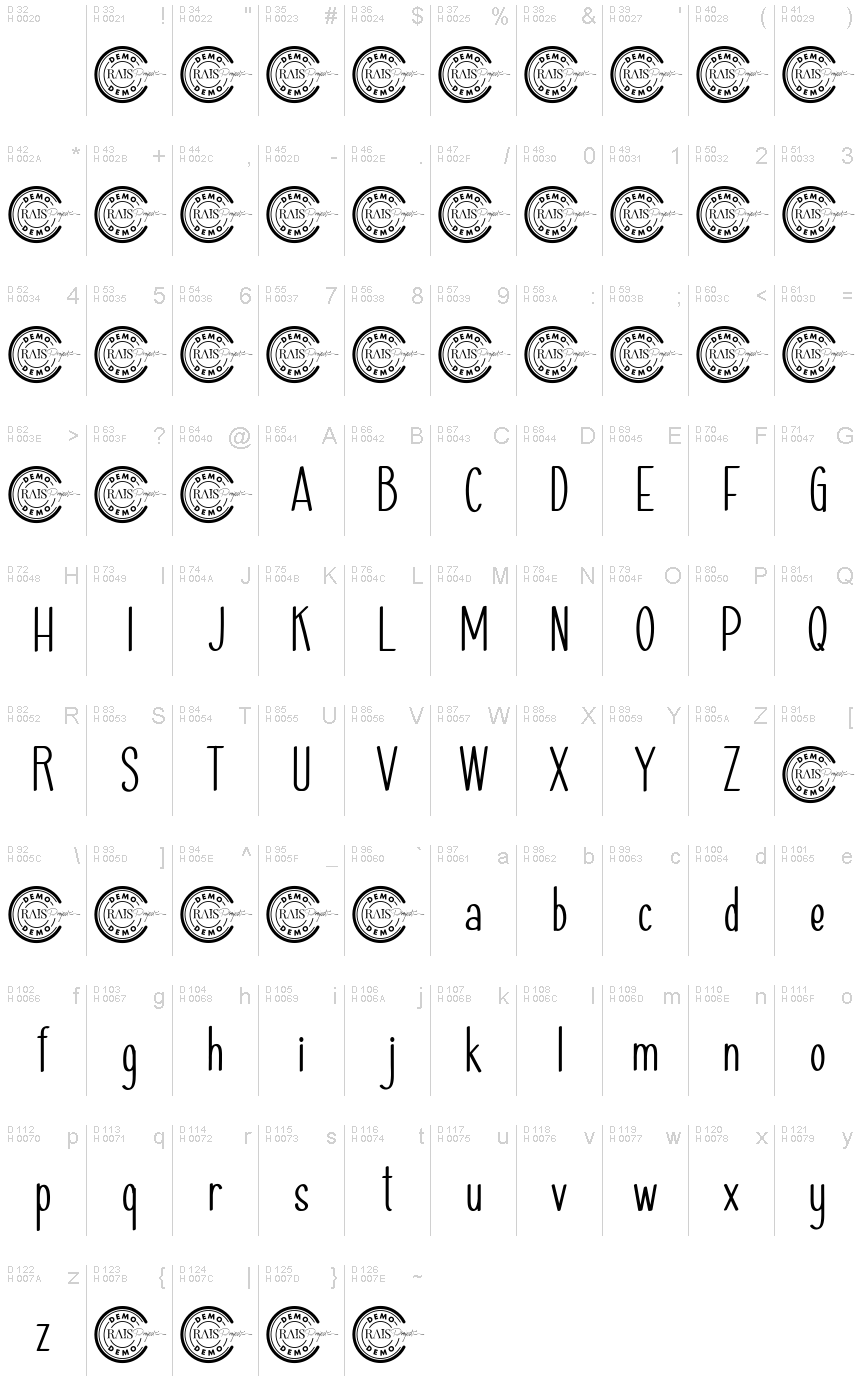
Haiesley Sans Condensed is a display font crafted by RaisProject that captivates with its sleek and slender profile. With an air of modern elegance, this font stands out through its condensed style, which allows for impactful messaging without overwhelming the visual space. The light strokes convey a sense of finesse and subtlety, making it an excellent choice for designers looking to impart sophistication and contemporary flair.
Ideal for fashion branding, upscale advertisements, and minimalist editorial layouts, Haiesley Sans Condensed brings a chic coherence to any design it graces. Its ability to pair readability with visual interest makes it versatile across both print and digital mediums. Whether used in large headings or as an understated body text, this font infuses every word with a refined aesthetic that is both memorable and timeless.